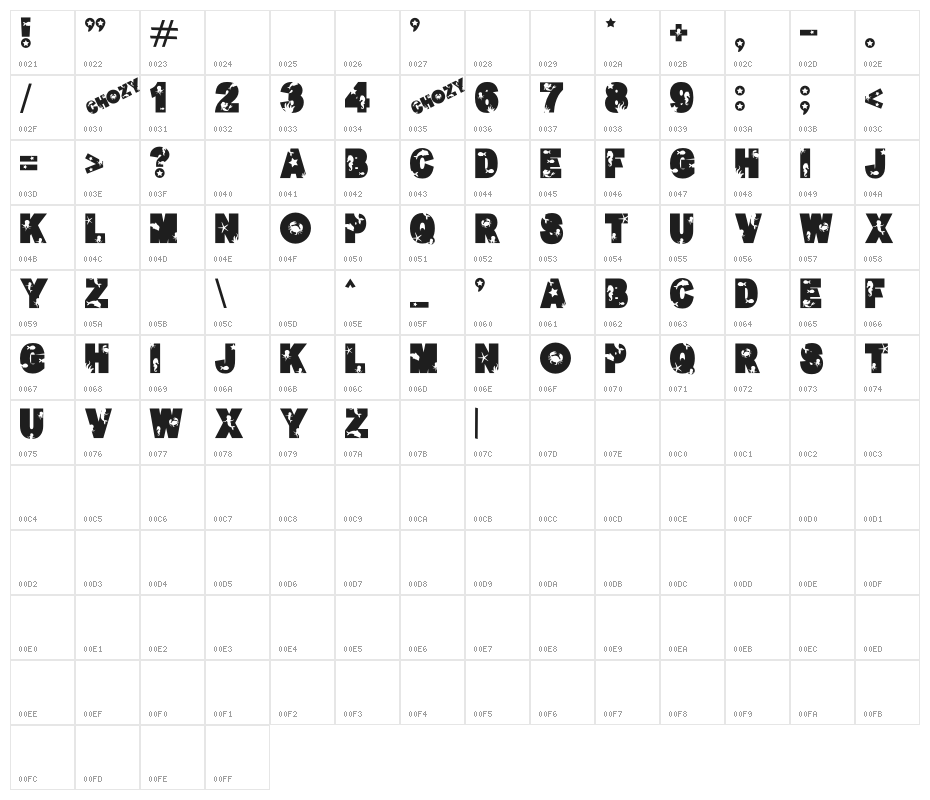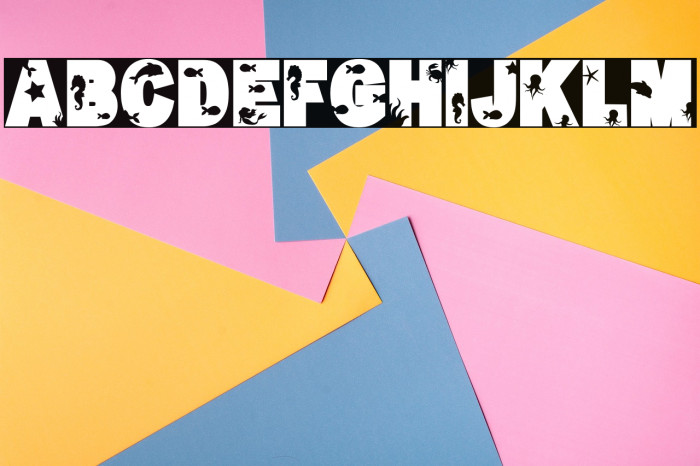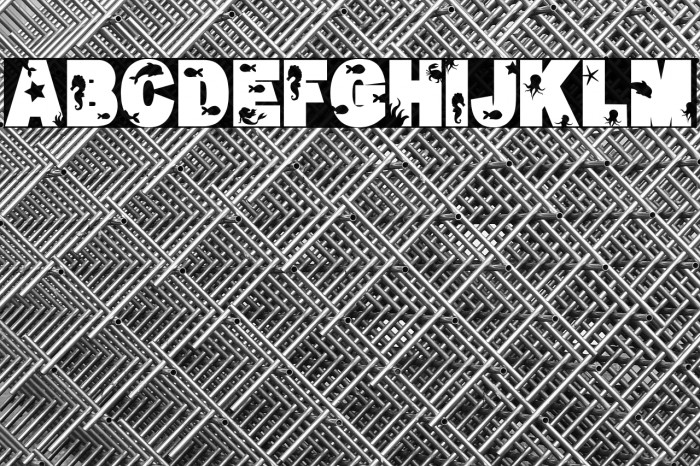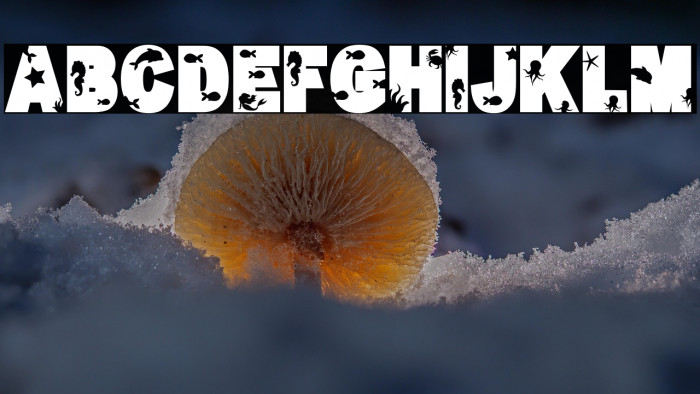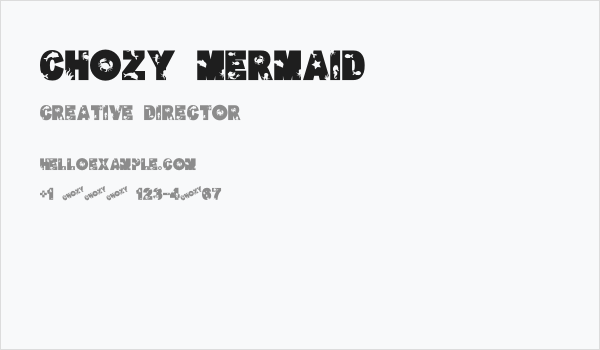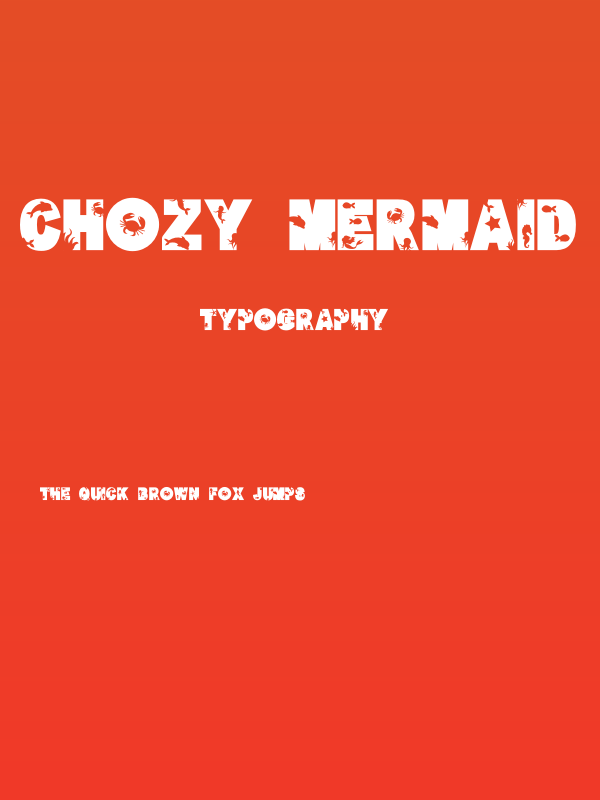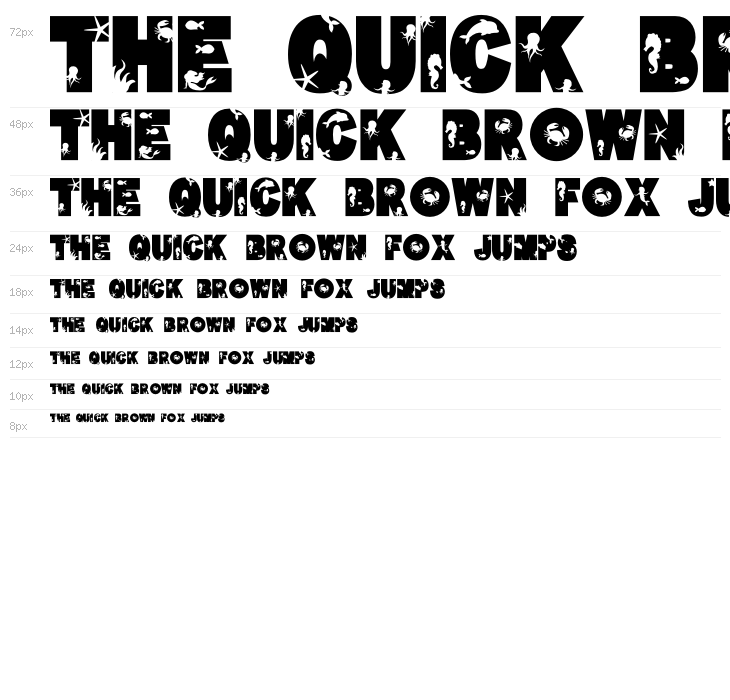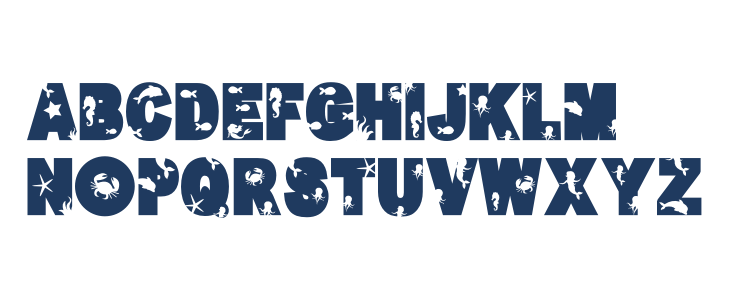
Chozy mermaid Font
Chozy mermaid Description
This font features bold, block-style letters with intricate decorative elements embedded within each character. The design incorporates whimsical, mermaid-themed motifs, including starfish, seashells, and waves, adding a playful and nautical flair. The characters are uniformly wide, creating a strong visual impact, while the decorative elements provide a unique texture and depth. The font maintains a consistent weight throughout, ensuring readability despite its decorative nature. The uppercase and lowercase letters are similarly styled, maintaining the thematic elements across all characters. Numbers and special characters are also included, each adorned with the same intricate details, making the font versatile for various creative applications.